Today’s article is a treat for our users as we went out and had chit chat with many designers to suggest us some really awesome fonts that designers should have in their library. After many days of chatting and emailing we have gathered 25 must have free fonts that are ideal for logo and heading design.
We made sure all the selected fonts are strong in appearance and are easy to read.
This collection of fonts will help you in your projects either it is clean or decorative design. We hope you will like this post and if you have any other fonts that can help other please post them in the comment section.
GreatLakes
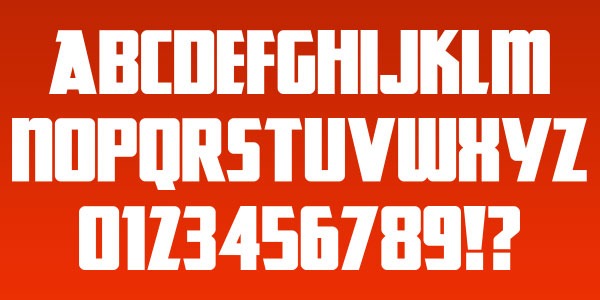
Gaps
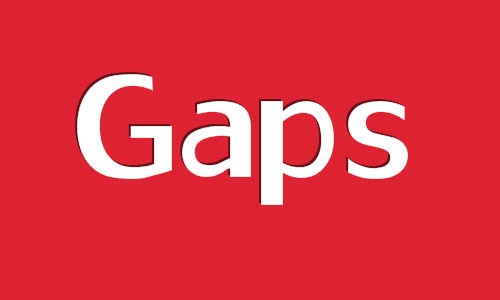
Bebas
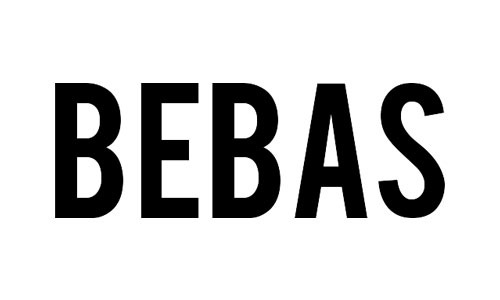
Gnuolane
Gnuolane is a serious headline font in five weights. While it borrows from 19th Century grotesque models, it possesses a superelliptical sixties sneer. Gnuolane includes old-style numerals, ordinals, superiors, inferiors, f-ligatures and class-based kerning.
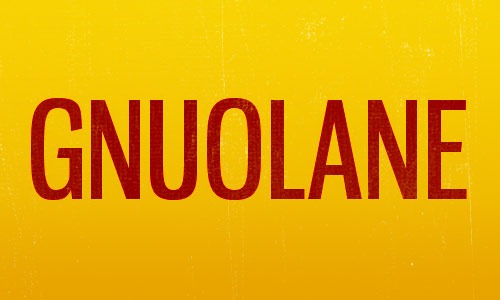
Soolidium
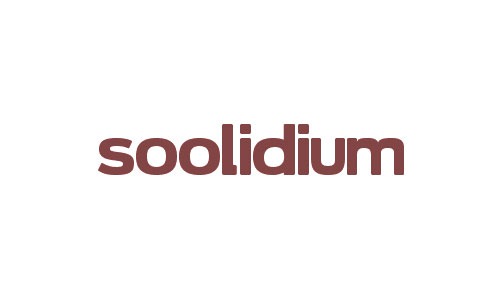
Bauer
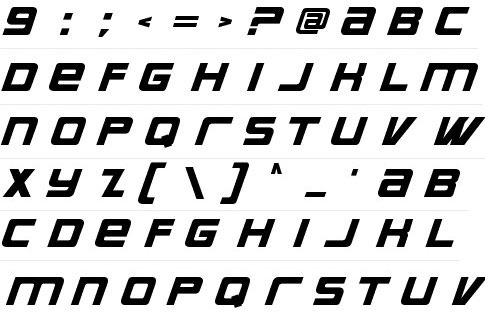
Mentone
Mentone is a new general purpose typeface, an attempt at extending the line of the great sans-serifs of the previous century, Frutiger – Stone Sans – Myriad. The font has round corners and subtle chamfers, which are all but invisible at text sizes, but add an upbeat, irreverent expression at display sizes. The typeface is named after the beautiful bayside suburb of Melbourne, Australia, where the designer lives. Version 2.5 has improved hinting and better display in Microsoft applications.
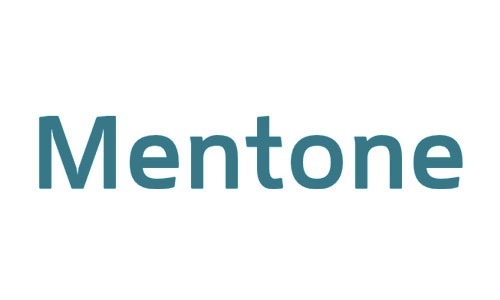
League Gothic
League Gothic is a revival of an old classic, and one of our favorite typefaces, Alternate Gothic #1. It was originally designed by Morris Fuller Benton for the American Type Founders Company in 1903. The company went bankrupt in 1993, and since the original typeface was created before 1923, the typeface is in the public domain. We decided to make our own version, and contribute it to the Open Source Type Movement. Thanks to a commission from the fine & patient folks over at WND.com, it’s been revised & updated with contributions from Micah Rich, Tyler Finck, and Dannci, who contributing extra glyphs.
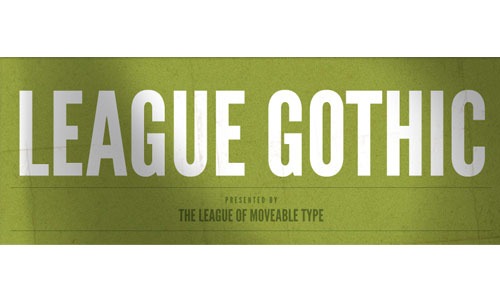
Sertig
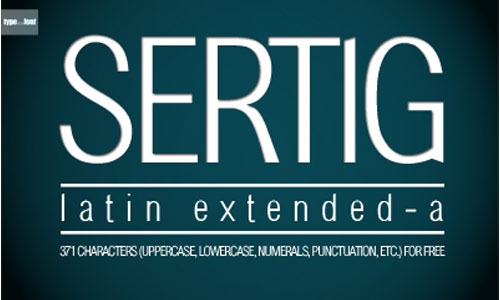
Savings Bond
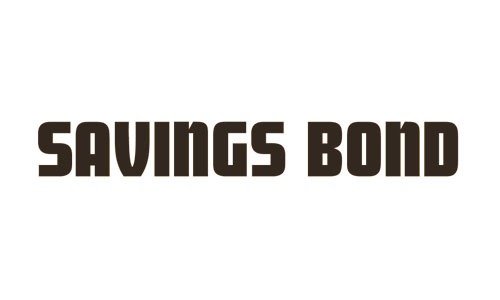
Headthinker
Started off as me trying to make a few custom letters to go on a t-shirt design. ithnkerfoam was all I needed but I ended up with a whole damn font! Best used with a large font size due to tight letter spacing!
Lobster
Suede
Franchise
FRANCHISE is a powerful new display typeface meant to communicate your message quickly and with power. The characters were meticulously drawn to achieve a unifomity without compromising style. Franchise is just as much at home on the front of a donut shoppe as it is on the scoreboard at a football stadium.
Harabara
Hit the Road
Kimberly
Kimberley was inspired by several 1970s corporate/industrial logotypes. The original open 4 and knock-kneed W are available in OpenType savvy applications using the stylistic alternates feature. Don’t forget to read the files inside the zip for details. Updated in 2012.
Molot
Old Sans Black
DAYS
DYLOVASTUFF
Gears of Peace
Karabine
Zekton
Nolla